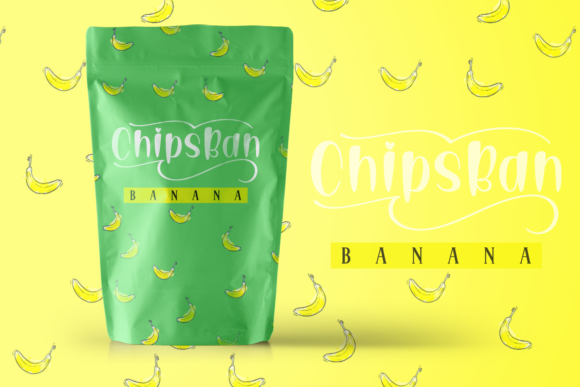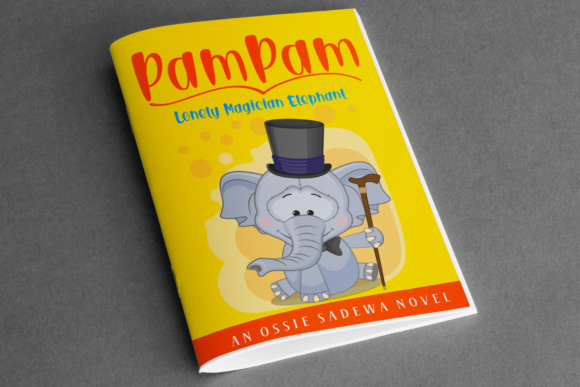
Wavering Font
About Wavering Font
The Wavering is a striking, yet elegant script font. It has a perfect readability and includes amazing swashes to spice up your designs.